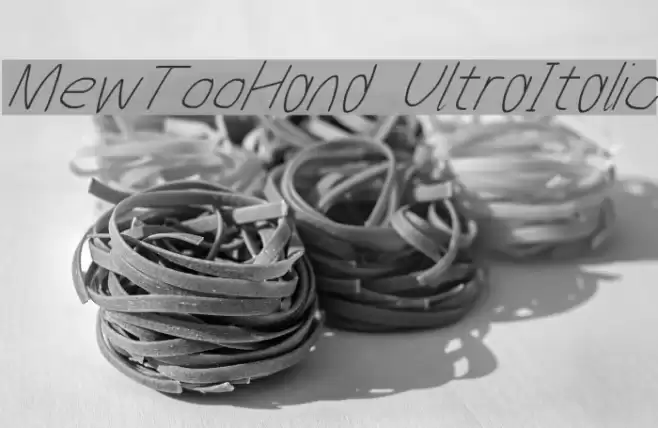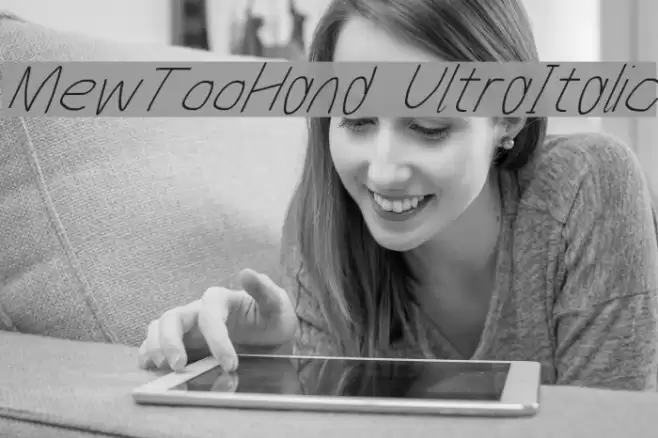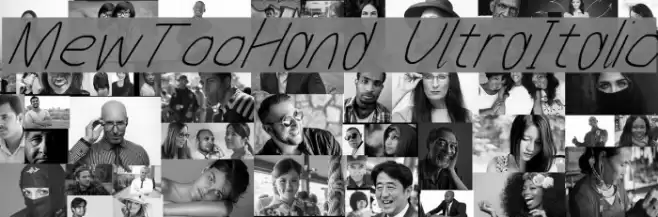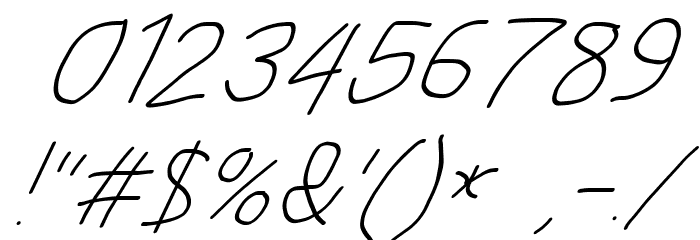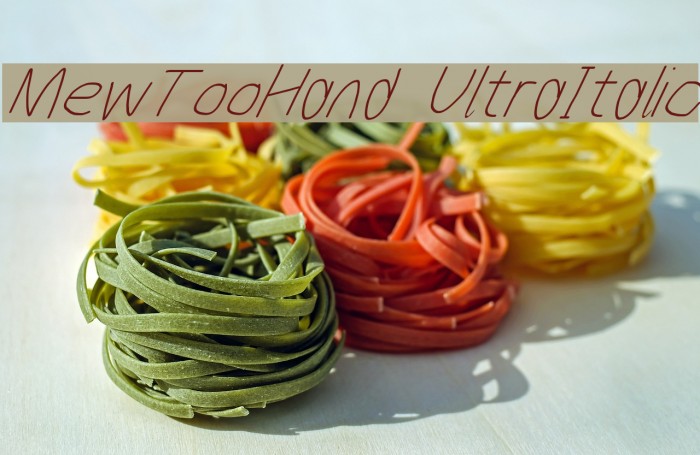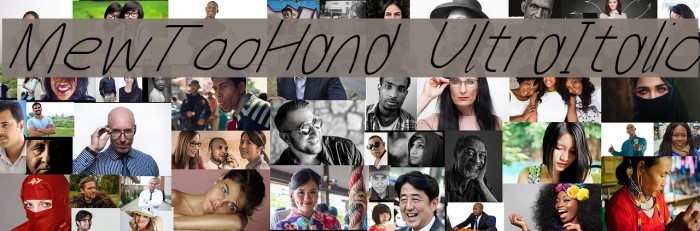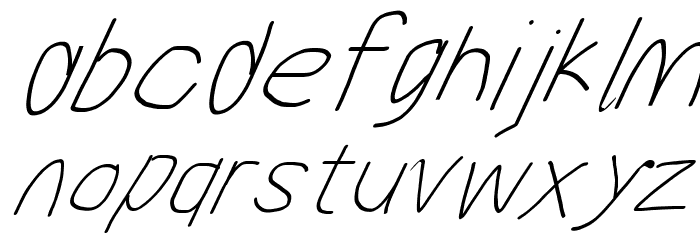
MewTooHand UltraItalic
This font features a dynamic and fluid handwritten style, characterized by its slanted, italicized form. The strokes are smooth and continuous, giving it an elegant and personal touch. Each character flows into the next, creating a sense of movement and rhythm. The uppercase letters maintain a consistent height, while the lowercase letters have a slightly more varied baseline, adding to the casual and informal feel. The numerals and special characters are designed to match the overall style, ensuring a cohesive look across all text. This font is ideal for projects that require a personal, handwritten touch.
A fluid, italicized handwritten font with a dynamic and elegant style.
- Proposed Projects: Ideal for personal invitations, greeting cards, branding projects, and any design requiring a handwritten touch.
- Use Case: Logos, Headlines, Personal projects